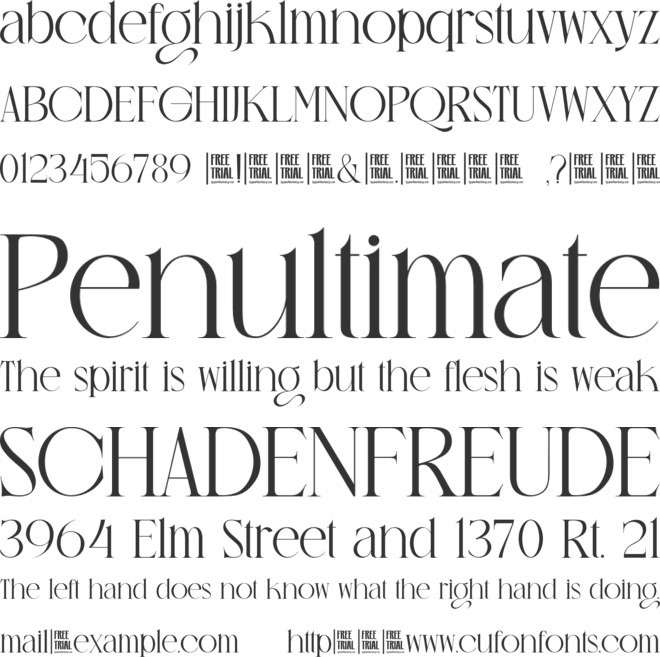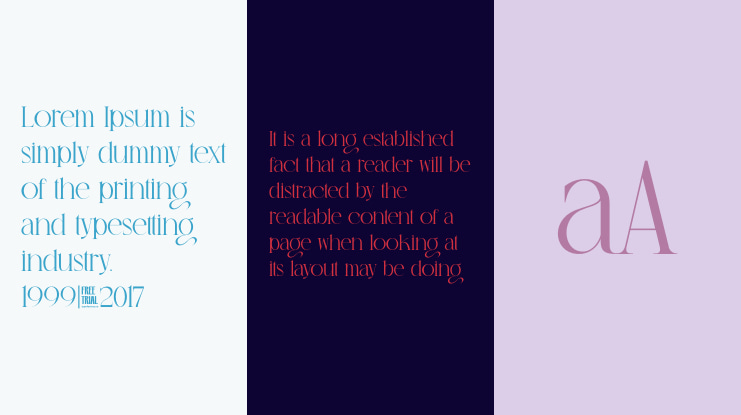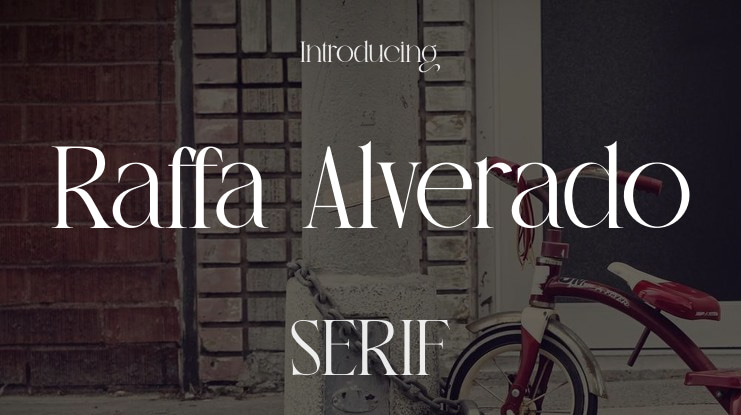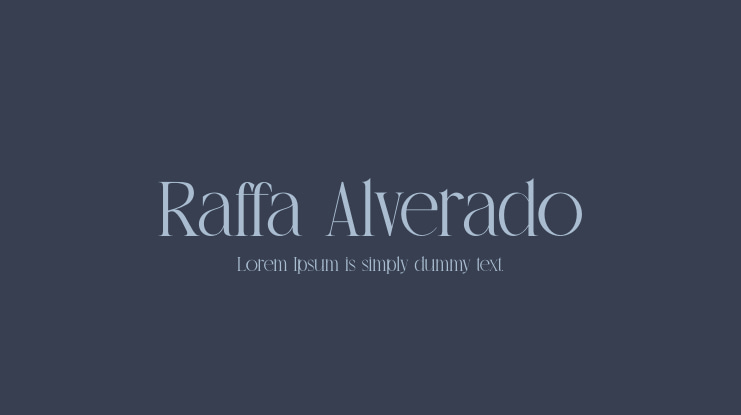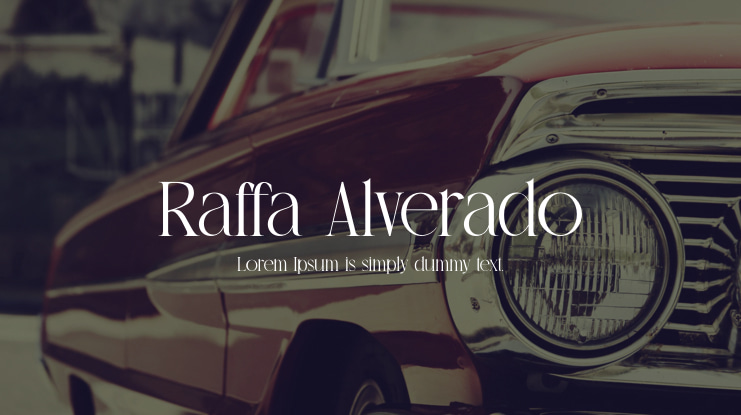
Raffa Alverado Font
Introducing "Raffa Alverado" - a condensed sharp serif typeface that combines elegance with a bold edge!
With its sleek and refined letterforms, "Raffa Alverado" adds a touch of sophistication to any design project. Each character is meticulously crafted to showcase a perfect balance of modernity and sharpness, making it ideal for sleek headlines, professional logos, minimalist posters, and more.
Embrace the versatility of "Raffa Alverado" as it effortlessly elevates your designs. Whether you're working on branding for high-end fashion, editorial layouts, powerful book covers, or impactful signage, this font will captivate your audience with its condensed and sharp serif style.
Step into a world of refined typography with "Raffa Alverado" and let your designs shine with elegance and boldness!